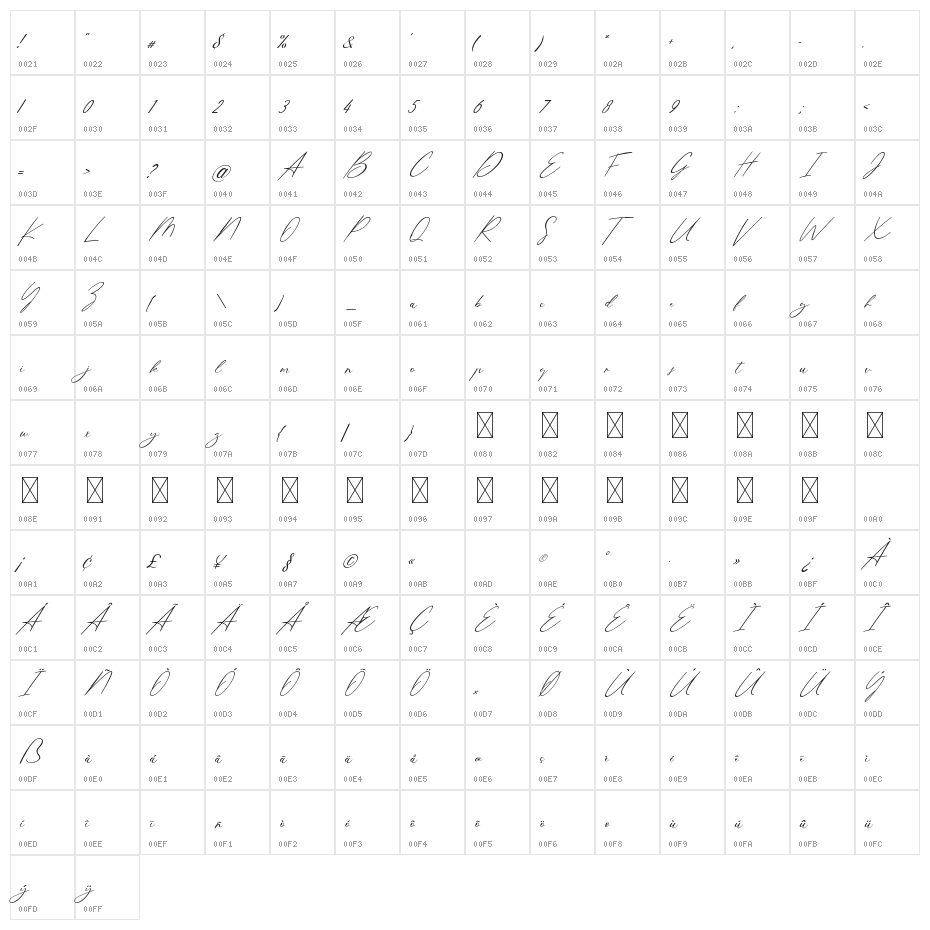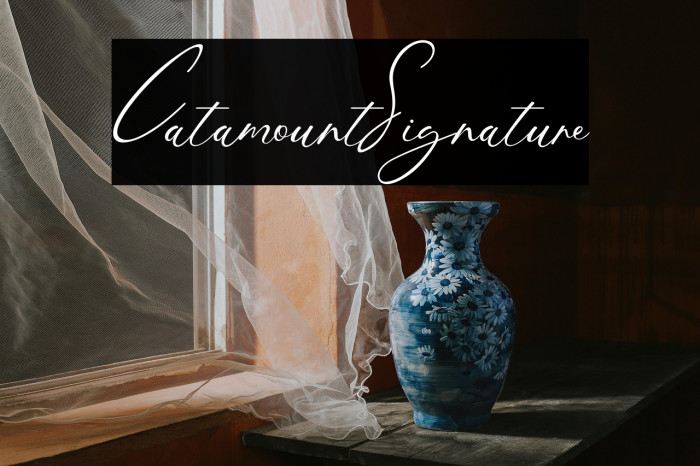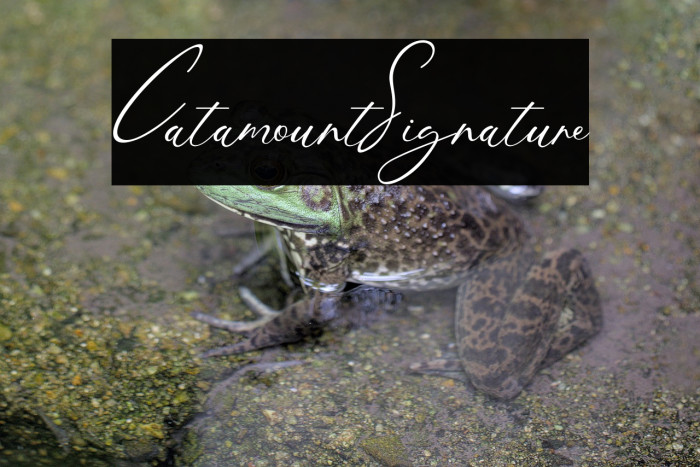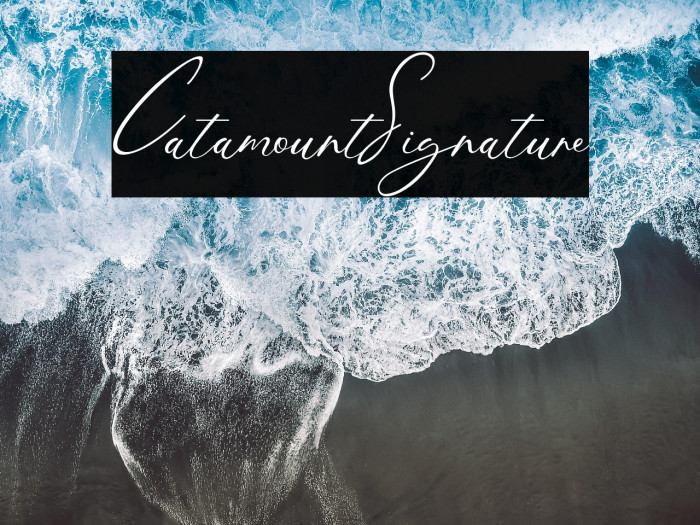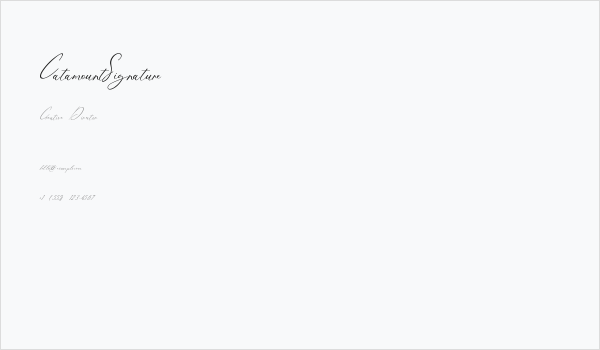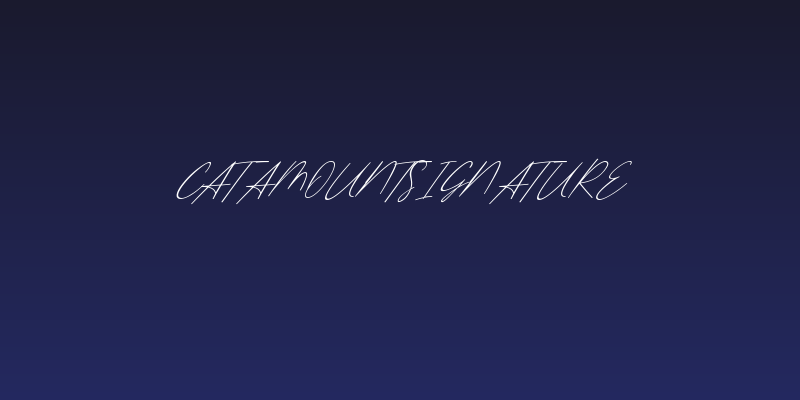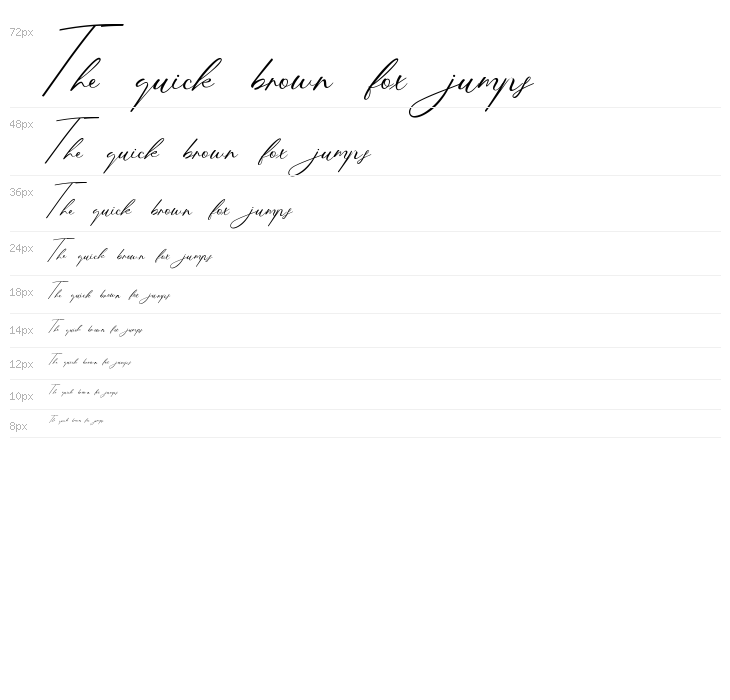
CatamountSignature Font
CatamountSignature Description
This elegant script font exudes a sense of sophistication and fluidity, characterized by its flowing, cursive letterforms that mimic the natural strokes of handwriting. The uppercase letters are tall and slightly slanted, while the lowercase letters maintain a consistent flow, enhancing readability. The numerals and special characters are designed to complement the overall style, maintaining the same graceful curves and lines. The font's delicate strokes and high contrast between thick and thin lines give it a refined and polished appearance, making it suitable for formal and decorative purposes.
Overall StyleElegant, Decorative
Use CaseLogos, Invitations, Branding
Proposed ProjectsIdeal for wedding invitations, elegant branding, personal signatures, and high-end product packaging.